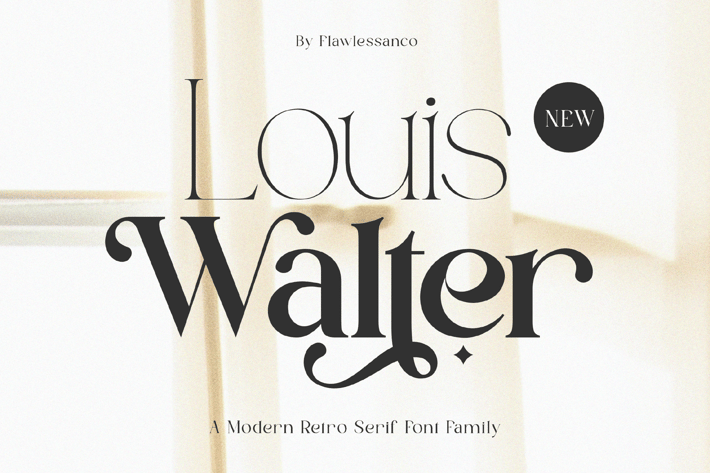
Louis Walter Retro Serif Font Family
Step back in time with "Louis Walter," a modern retro serif font family that combines the charm of vintage typography with contemporary sophistication. Perfect for branding, editorial design, wedding, invitation, branding, logo, magazine, t-shirt, print, and more, Louis Walter offers versatility and elegance in every letter.